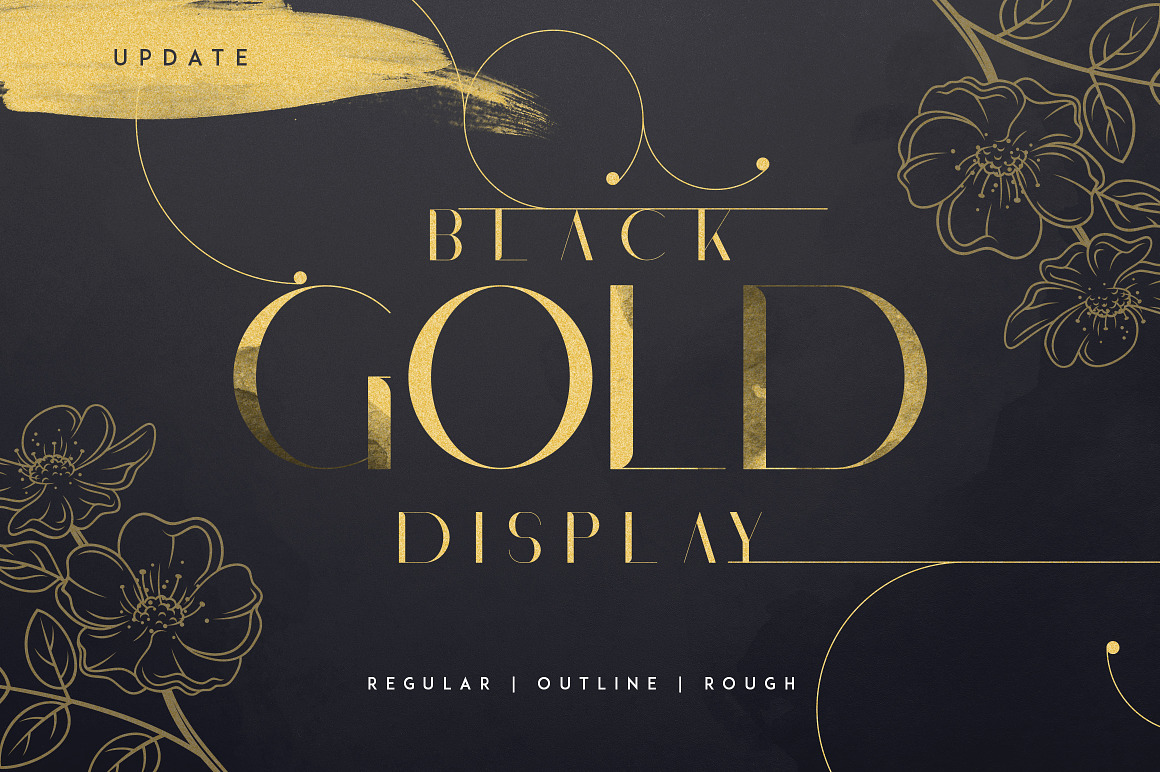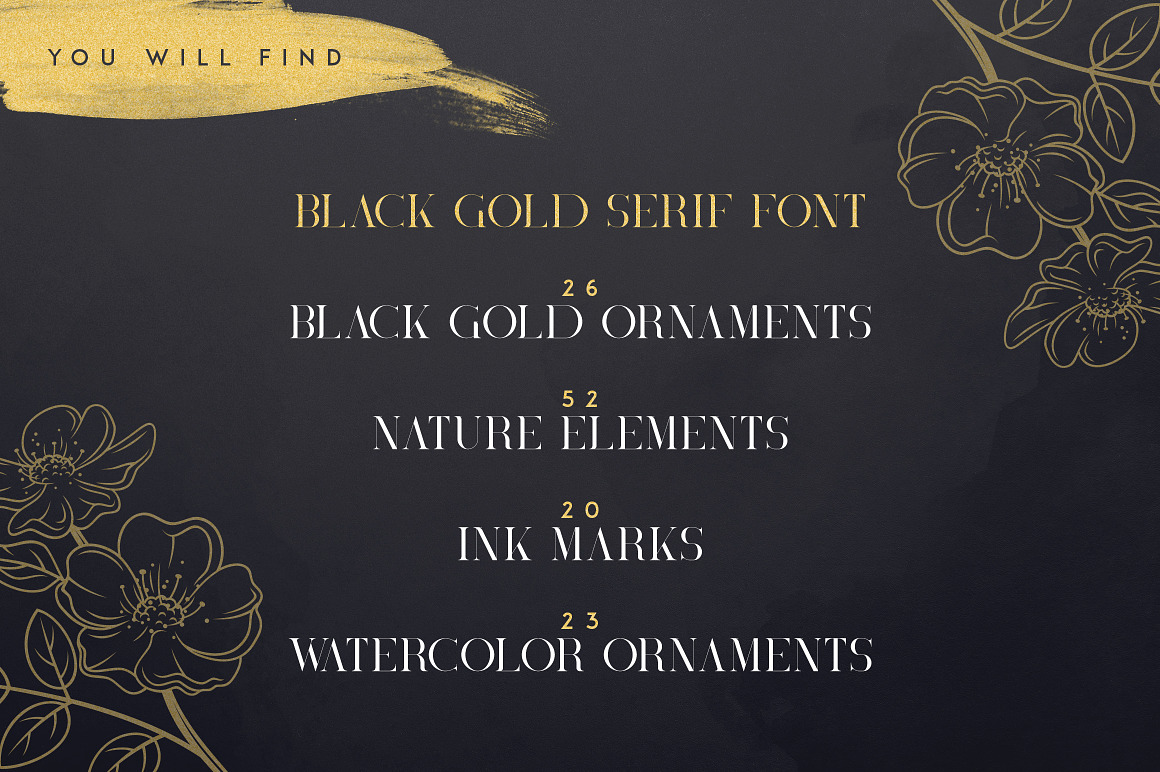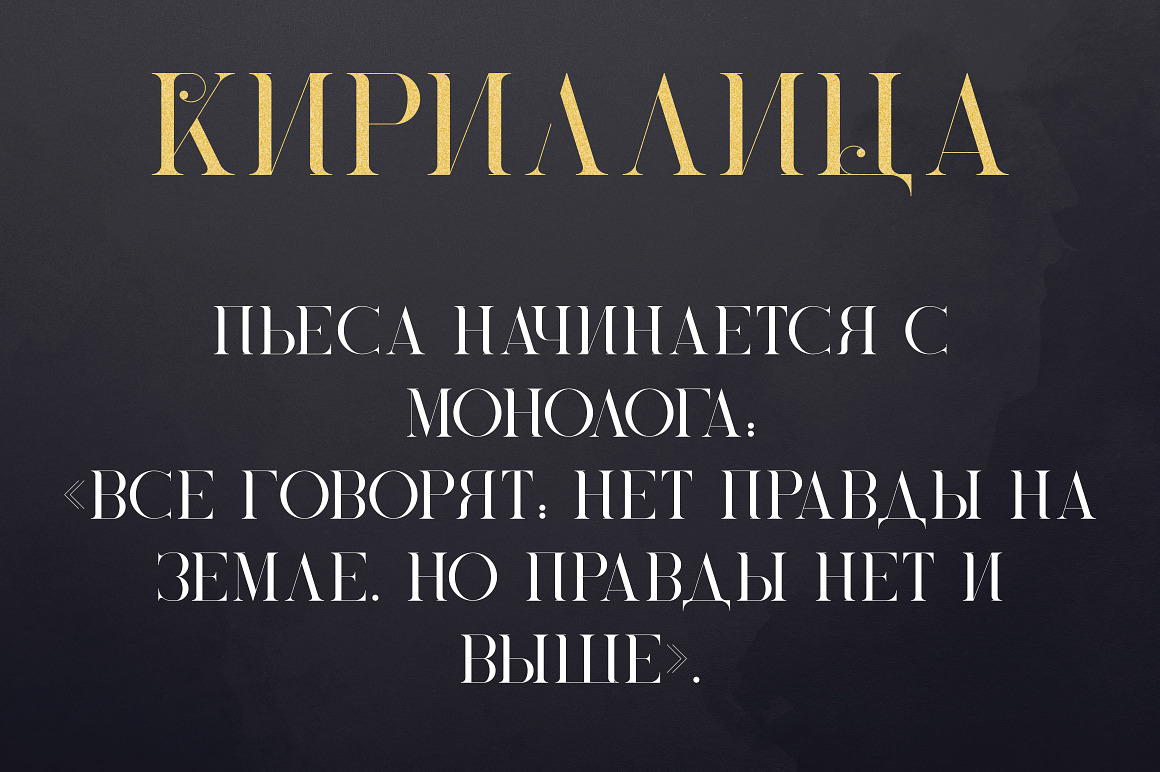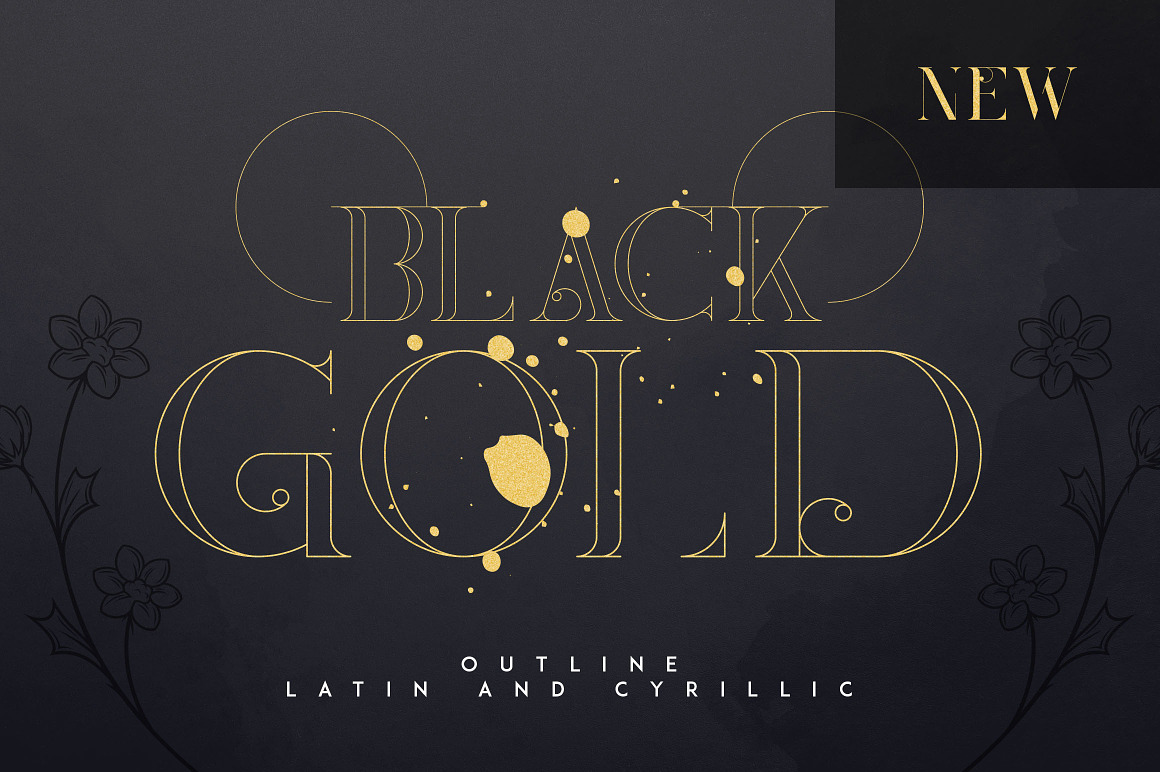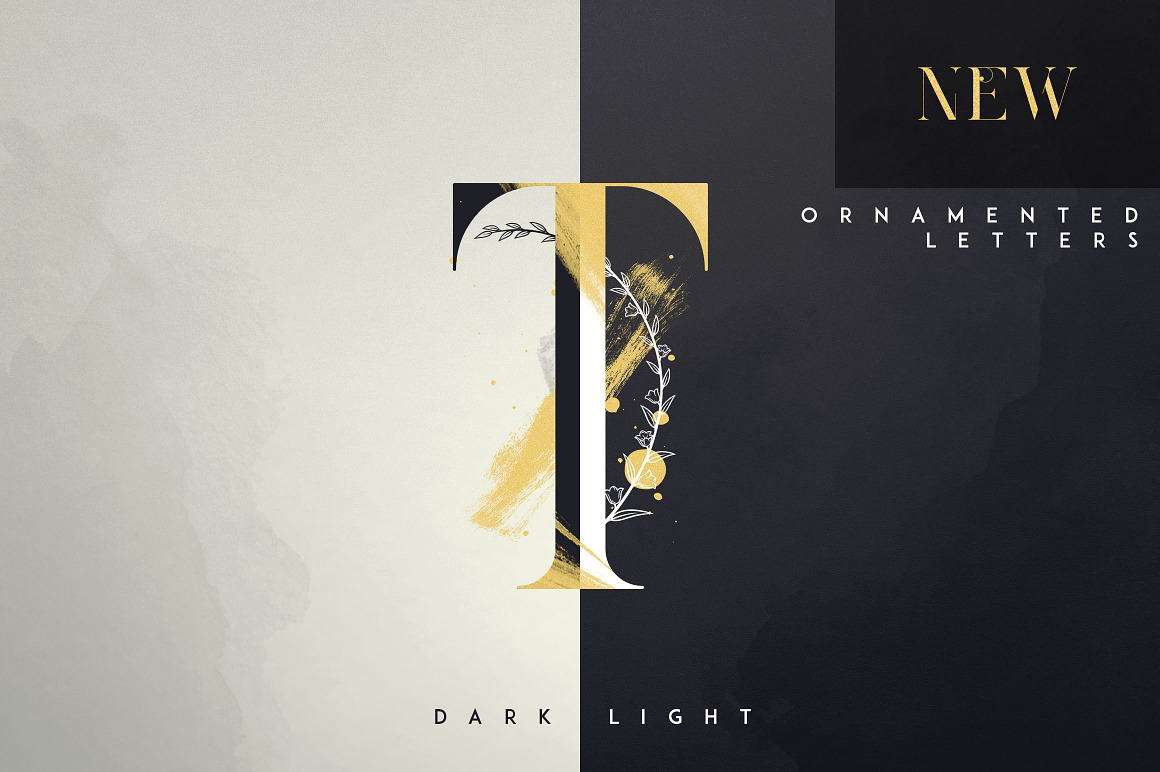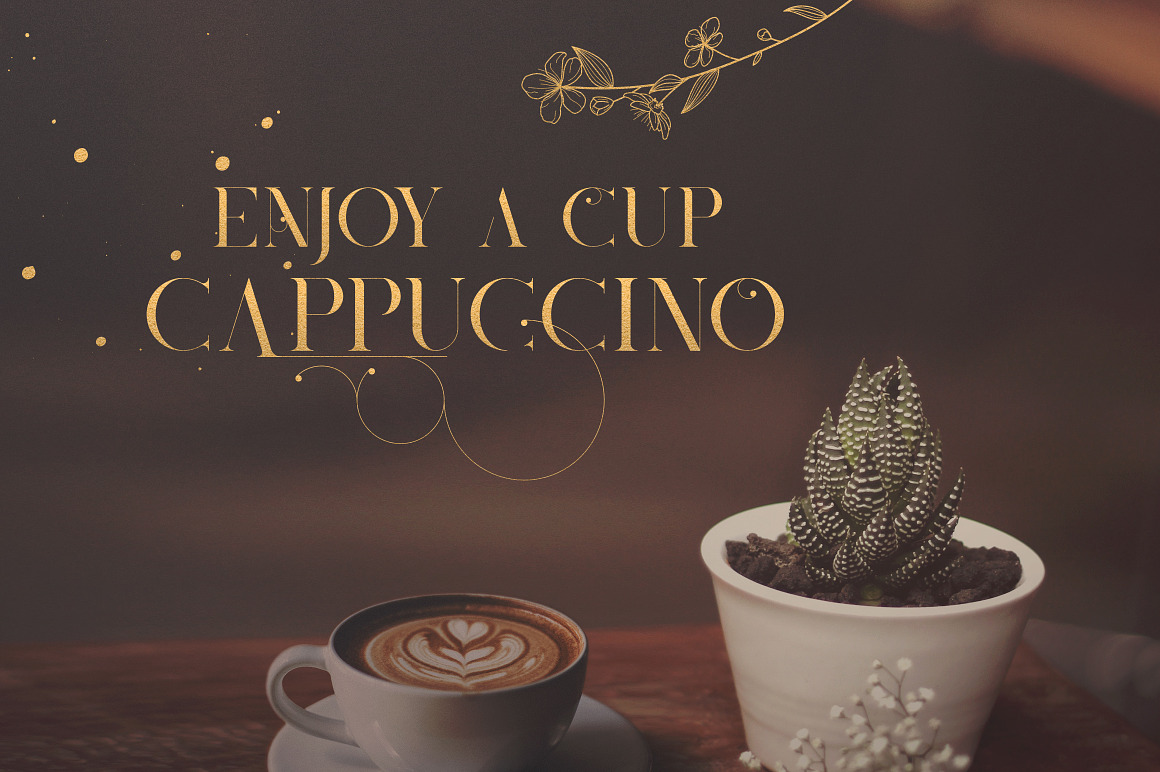
Additional glyphs added Cyrillic support 12 additional elements Additional watercolor ornaments 5 new photoshop styles UPDATE 2 outline version rough version ornamented letters FINAL UPDATE Black Gold Display - Serif and Cyrillic Black Gold Display Outline - Serif and Cyrillic Black Gold Display Rough - Serif and Cyrillic Black Gold is sophisticated font with tons of alternative glyphs, ornaments, nature elements, photoshop styles, watercolours, ink marks and multilingual support. It's a very versatile font that works great in large and small sizes. Black Gold is perfect for branding projects, home-ware designs, product packaging, magazine headers - or simply as a stylish text overlay to any background image. In the product you will find: Black Gold serif font with tons of alternative glyphs and multilingual support 26 Black Gold ornaments 40 Nature elements in PSD, EPS, Ai, JPEG formats 20 Ink marks in PSD, EPS, Ai, JPEG formats 10 Photoshop styles in ASL format 6 Watercolor Elements in PNG format with transparent background